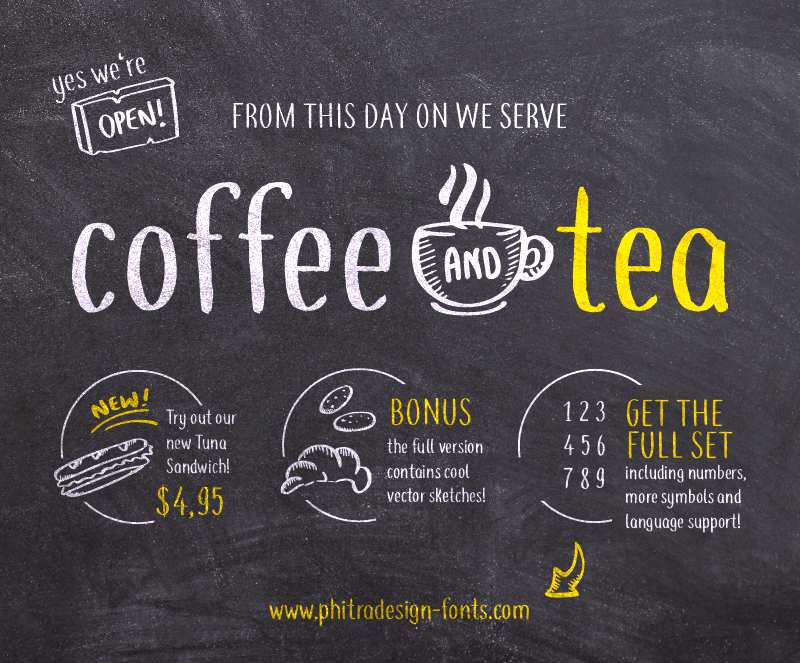
Introducing our new handwritten styled font "coffee and tea" - because why not having both? Both lowercase and uppercase give the font a lot of various styles! Plus: If you buy the full version you'll also get some hand drawn vector sketches I made for the presentation as .ai and .eps! The full version also includes all numbers, more symbols and language support! Get it today on www.phitradesign-fonts.com! Please note: The font is free for personal use, so if you want to use it commercially buy the full version, which includes a license for company with less than 10 members. If your company has more than 10 members (actual people in it) just send me a message over the website or to license@phitradesign-fonts.com! Thanks! -Philip |